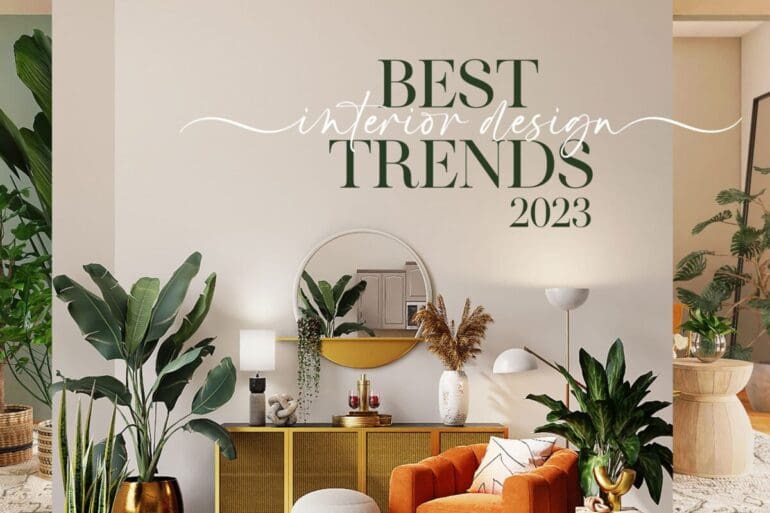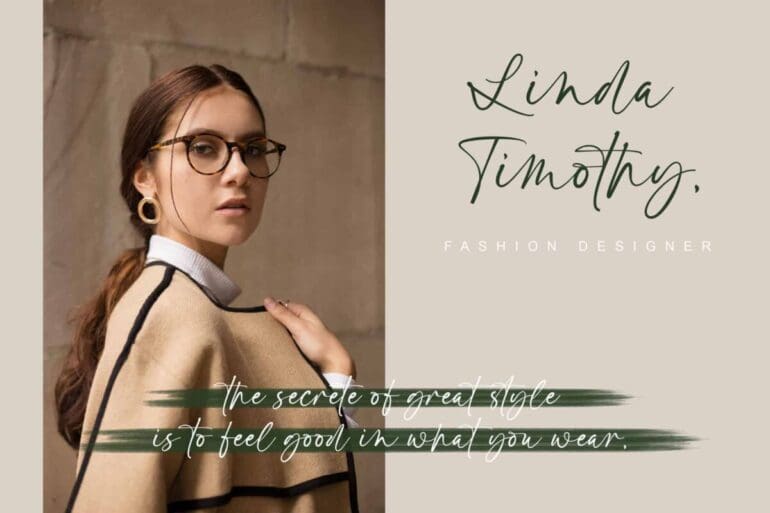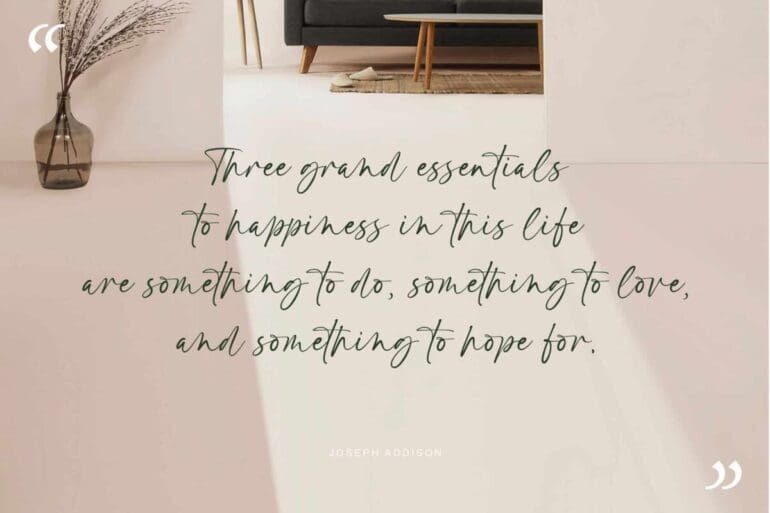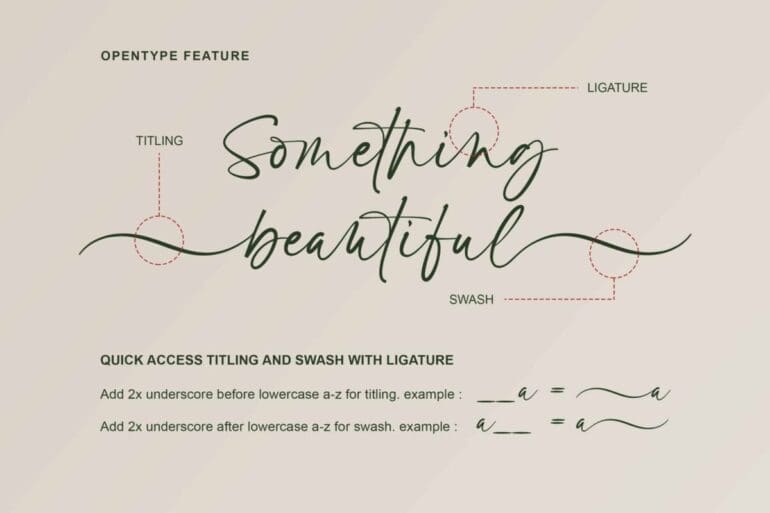
Canqitu stand Font
Cantiqu stand is a beautiful handwritten script font. Cantiqu stand Font is perfect for many different project such as logos & branding, invitation, stationery, wedding designs, social media posts, advertisements, label, or anything.